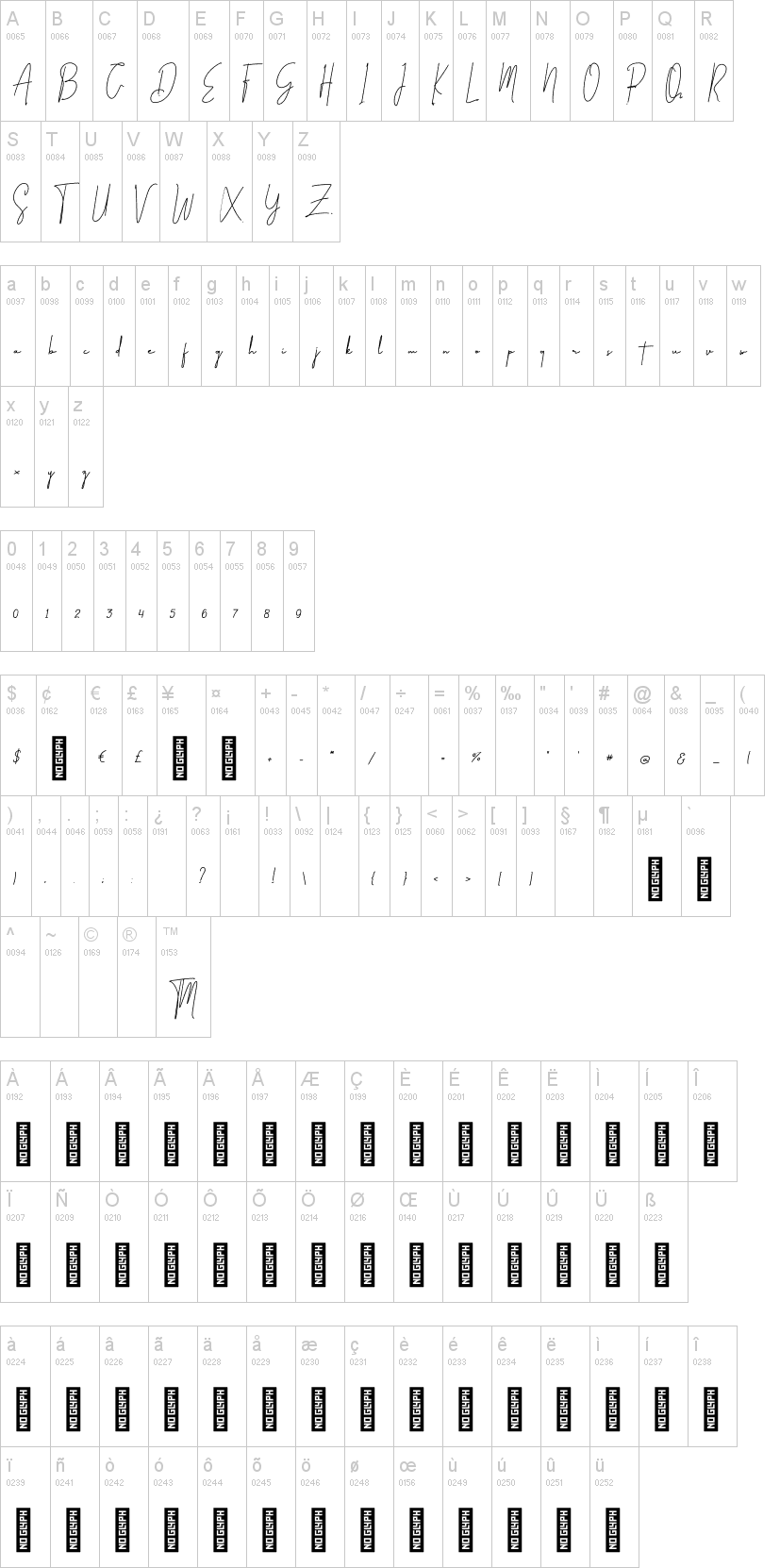
Amillia Signature
Note of the authorAmillia Signature is a handcrafted signature font with thin line and natural looking style.
Amillia Signature is suitable for logo, social media posts, advertisements, product packaging, product designs, label, photography, watermark, invitation, weddings, stationery and any other projects that need a signature style font.